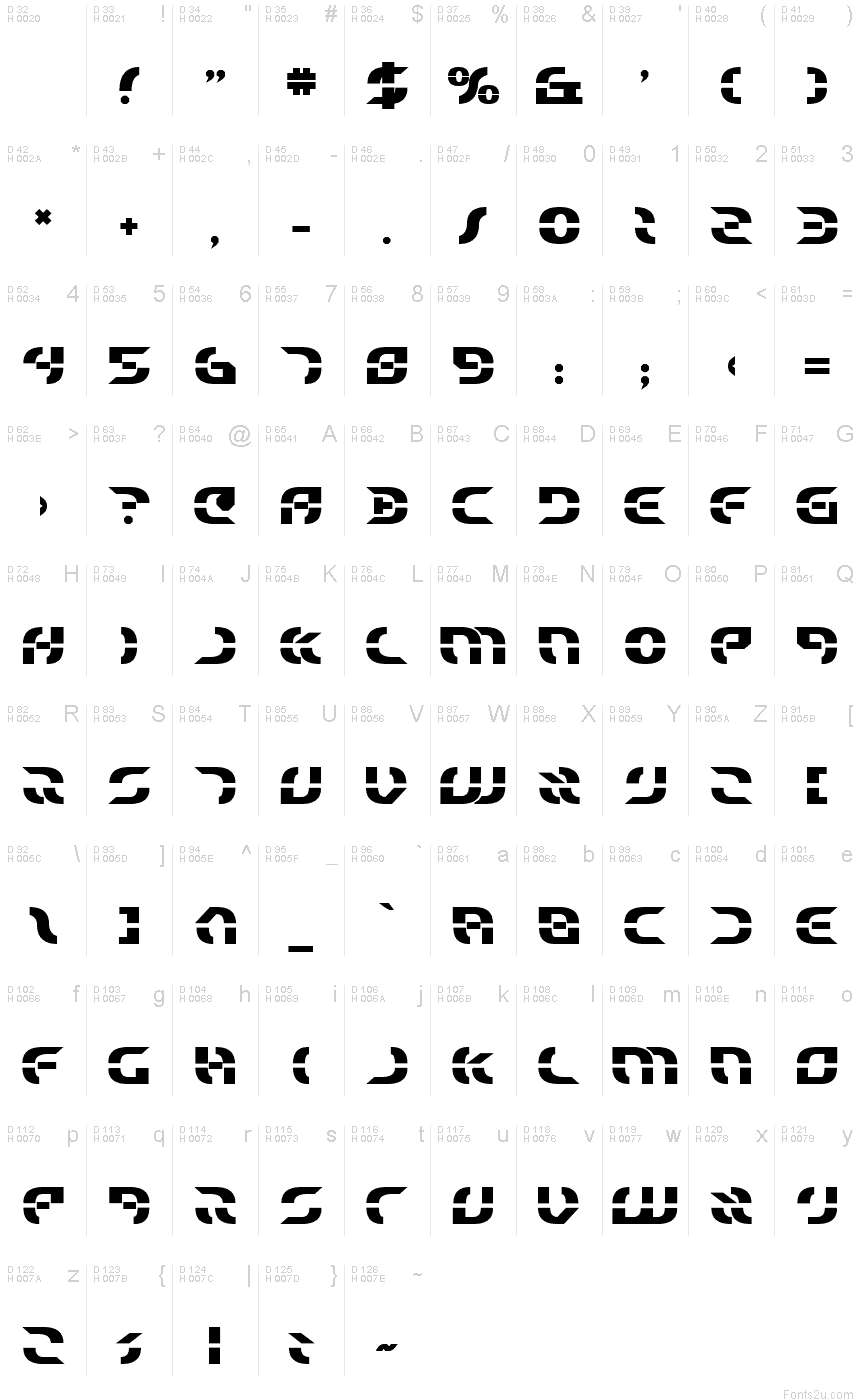
Starfighter Bold
Starfighter Bold by Iconian Fonts is a free futuristic display font built from broad, segmented letterforms. Rounded outer curves meet hard horizontal cuts, giving the lettering the look of panels joined across a machine casing. Its low, extended silhouette feels fast and engineered.
A science-fiction game interface is its strongest setting, with the same mechanical shapes fitting film title cards and electronic music posters. For technology branding, it can turn a product name into an emblem.